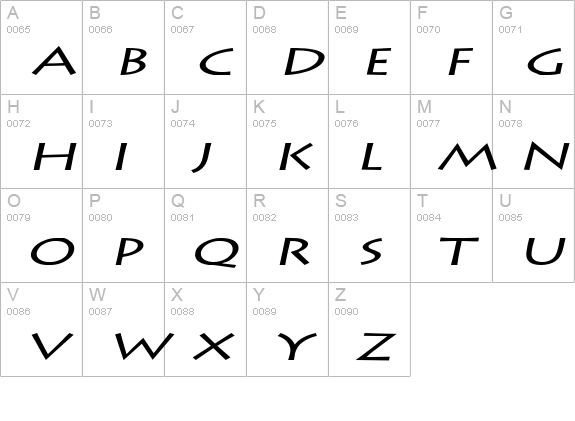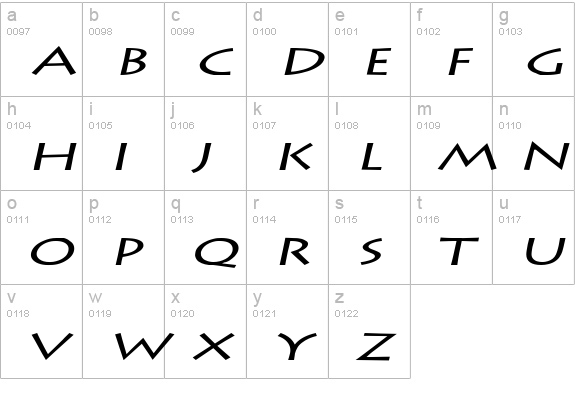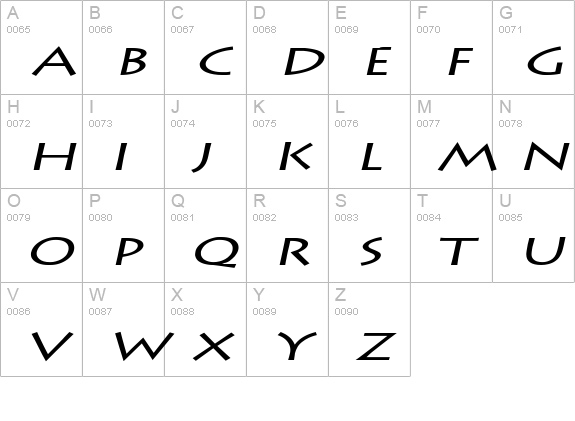
Liste Extended Italic Font Details
Liste Extended Italic is a distinctive, extended-width, italic variant in the Liste typeface family \xE2\x80\x94 well suited to design and typography projects.
The Liste Extended Italic font is a beautifully crafted typeface that exudes elegance and sophistication. Its slanted design adds a touch of modernity while maintaining a sense of classic beauty. The sleek curves and stylish letterforms make it perfect for adding a touch of flair to any design project. What's even better is that Liste Extended Italic font is available for free download at FontsMarket.com. This means you can easily access this stunning font and use it in your personal or commercial projects without any cost. Embrace the beauty and versatility of Liste Extended Italic font and elevate your designs to the next level.